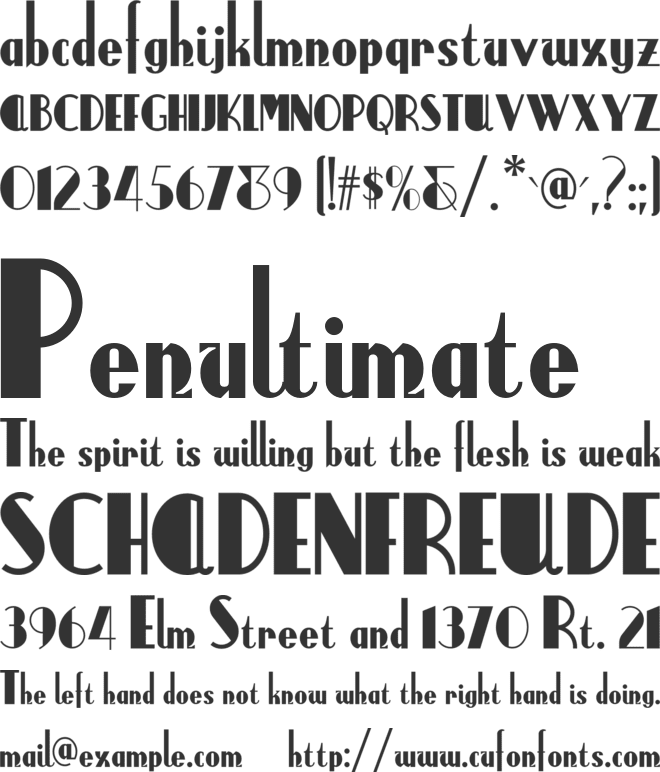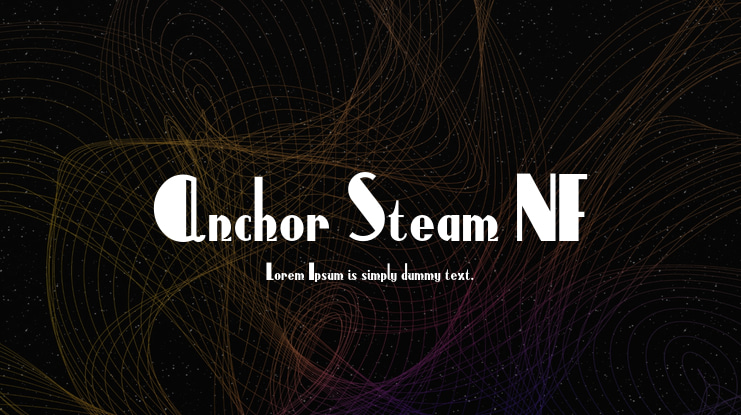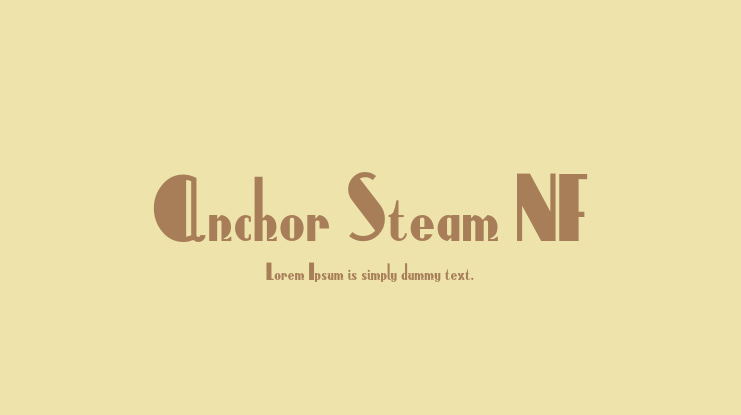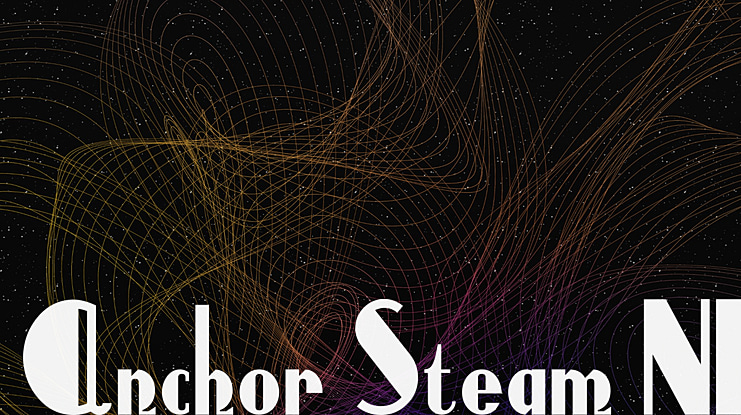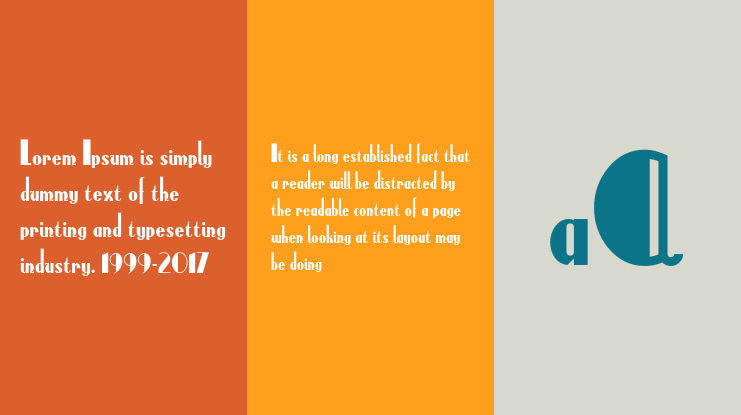
Anchor Steam NF Font
Nick Curtis
This typeface was inspired by lettering on a 1923 poster by Wilhelm Poetter. A curious blend of Art Deco and medieval elements, with an uncial kinda feel to the lowercase letters. Named after a tasty but expensive San Francisco beer, mainly to show off the funky uppercase A.